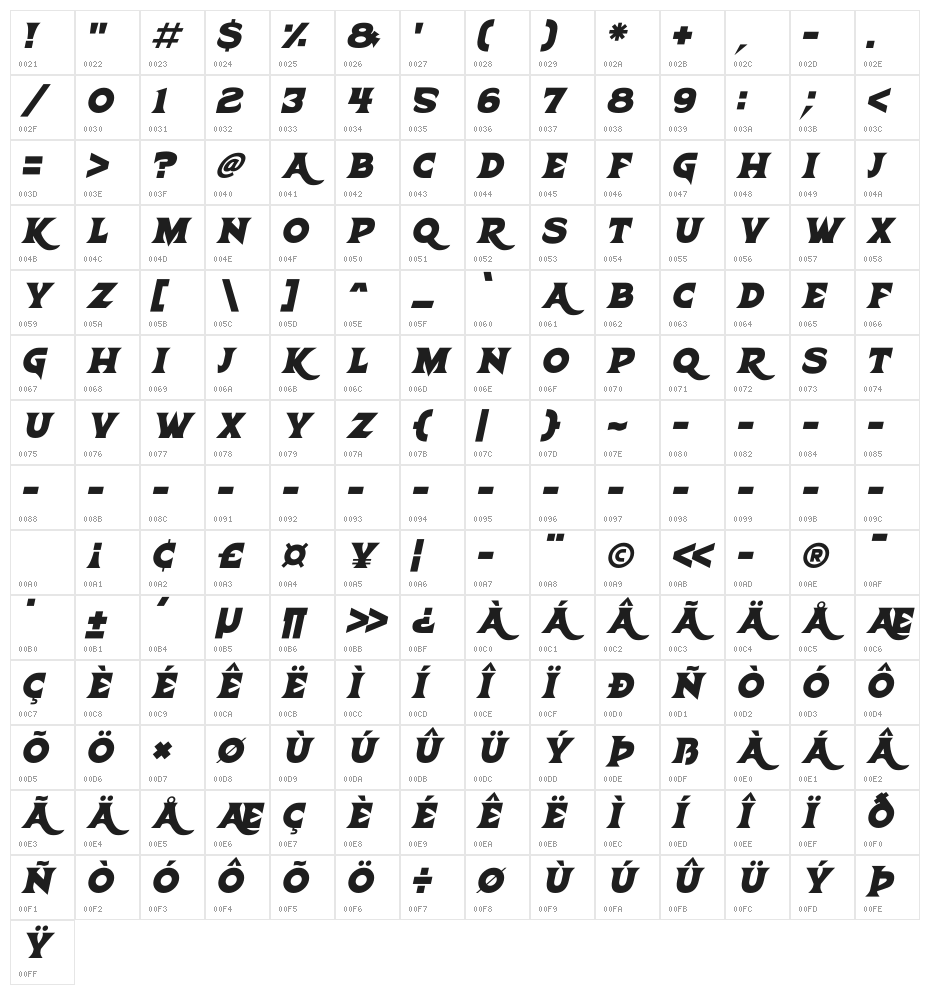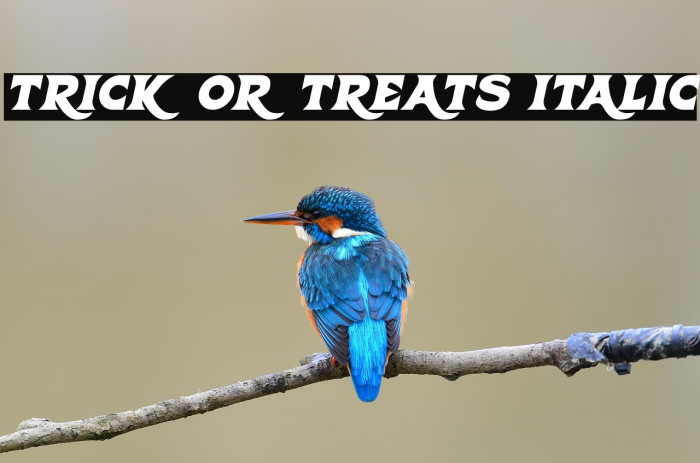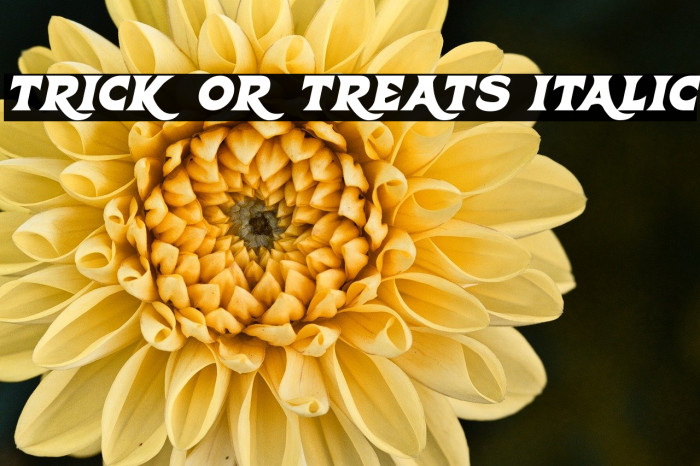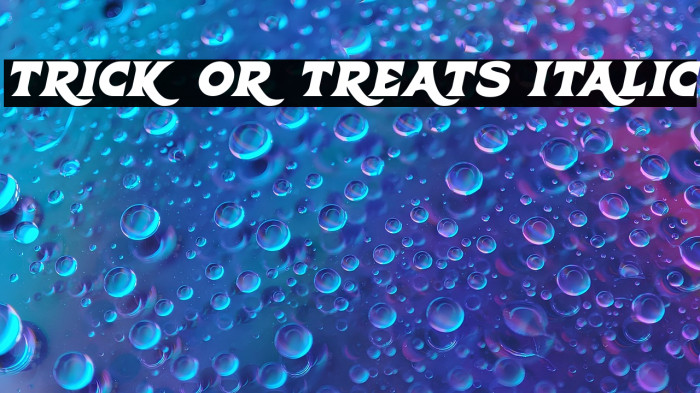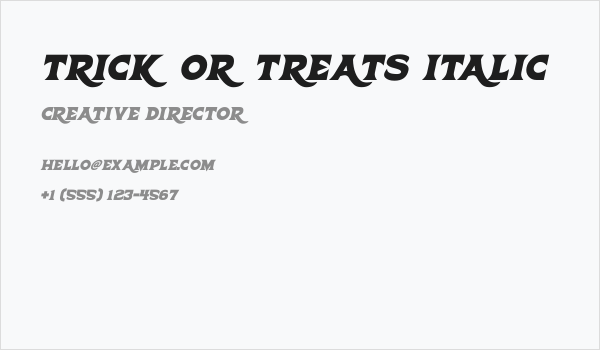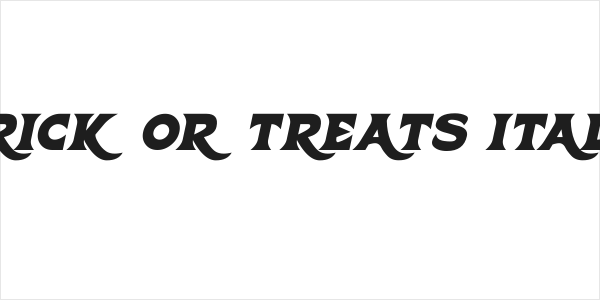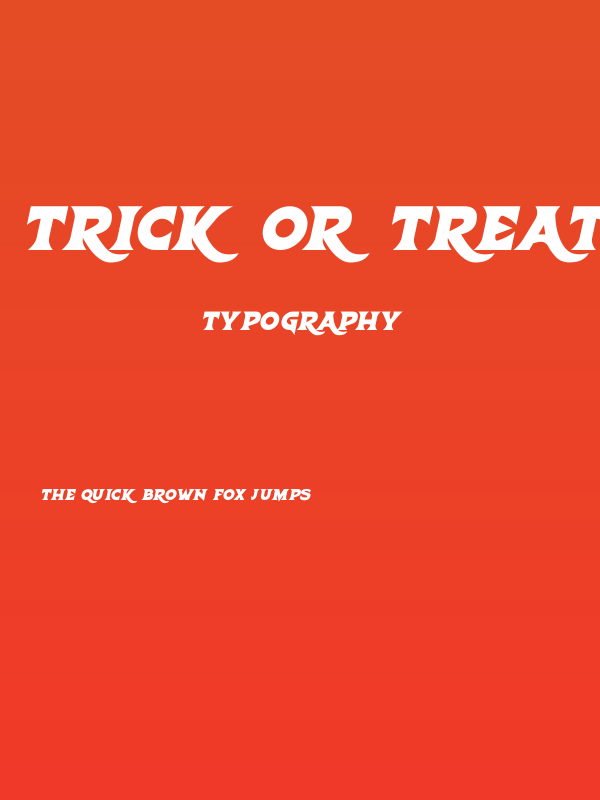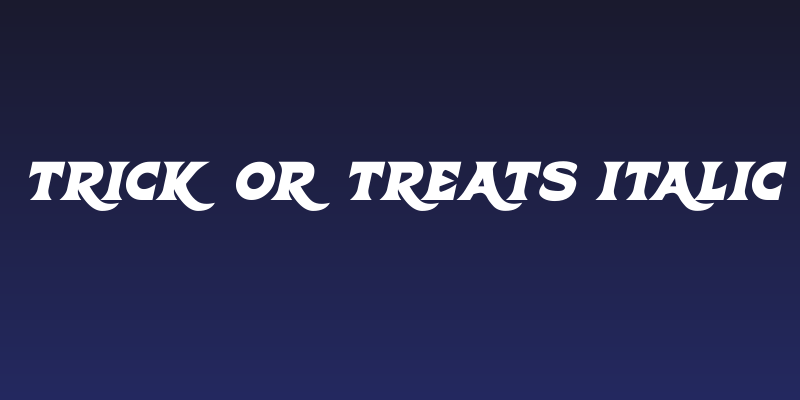
Trick Or Treats Italic Font
Trick Or Treats Italic Description
This font features a bold and dynamic style with sharp, angular edges and a distinct italic slant. The characters are designed with a strong presence, making them ideal for attention-grabbing headlines or titles. The uppercase and lowercase letters maintain a consistent style, with the lowercase mirroring the uppercase in form and flair. Numbers and special characters are equally bold, ensuring uniformity across all text elements. The font's design is reminiscent of a modern, edgy aesthetic, suitable for projects that require a touch of boldness and creativity.
| Proposed Projects | Ideal for Halloween-themed designs, posters, logos, and any project requiring a bold, eye-catching typeface. |